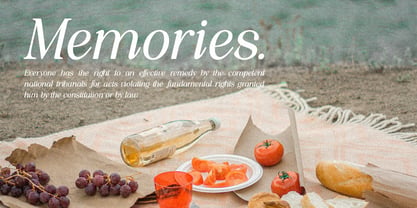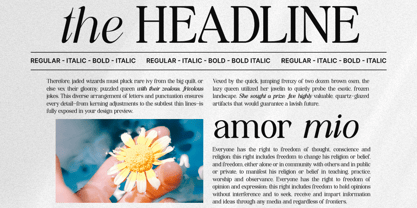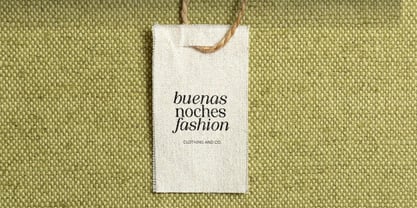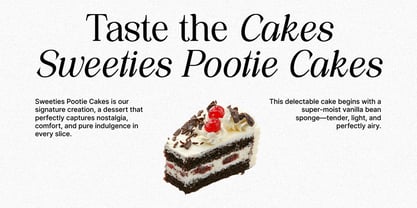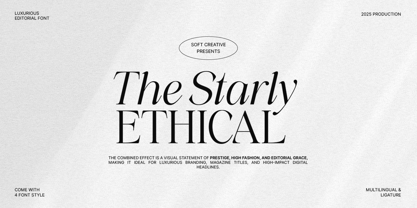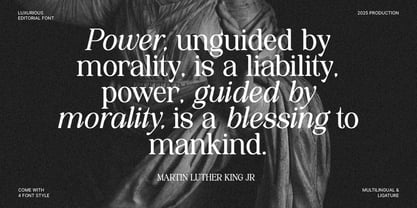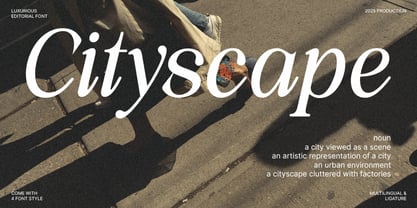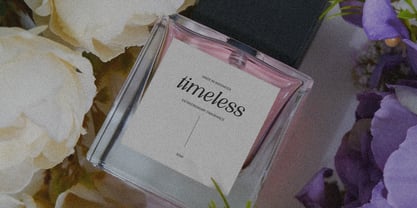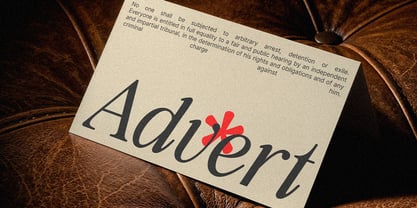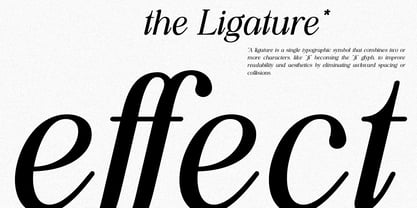
The Starly Ethical
La famille de polices The Starly Ethical a été conçue par Muhajir Akarim et publiée par Soft Creative. The Starly Ethical contient 4 styles et options de package familial. En savoir plus sur cette famille
The Starly Ethical is an editorial serif font that blends luxury, elegance, and class with a subtle modern touch. Its character is characterized by graceful bold-thin contrast, sharp yet soft letterforms, and ligature details that reinforce a high-fashion and prestigious feel. This font is designed to convey a luxurious, sophisticated, and timeless look, making it an ideal choice for magazine titles, premium branding, exclusive logos, high-end product packaging, and high-impact digital headlines. With its balance of classic beauty and contemporary aesthetics, The Starly Ethical creates a strong visual statement without compromising on elegance. Equipped with multiple font styles, multilingual support, and elegant ligatures, this font is highly versatile for a variety of editorial and commercial design needs that demand high visual quality.